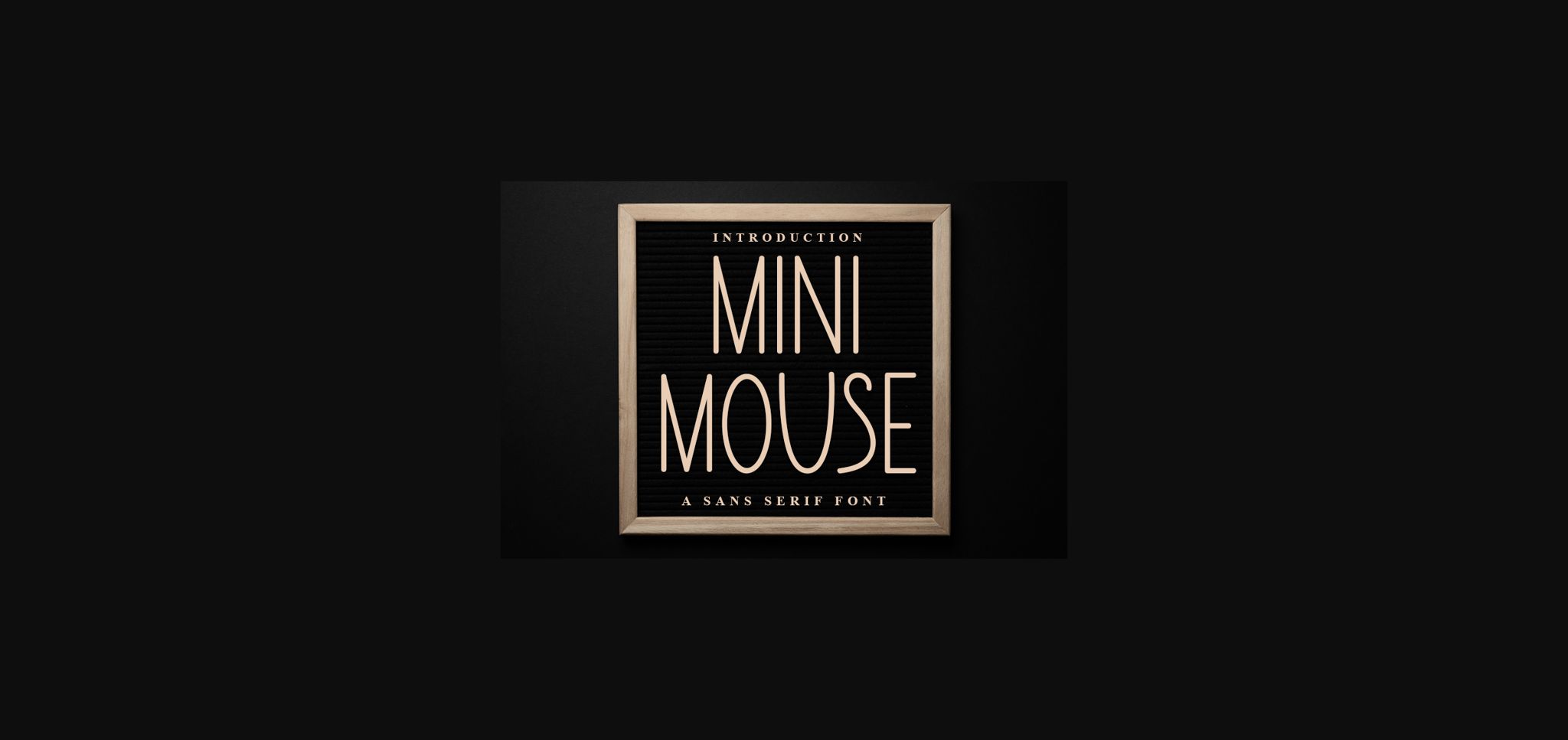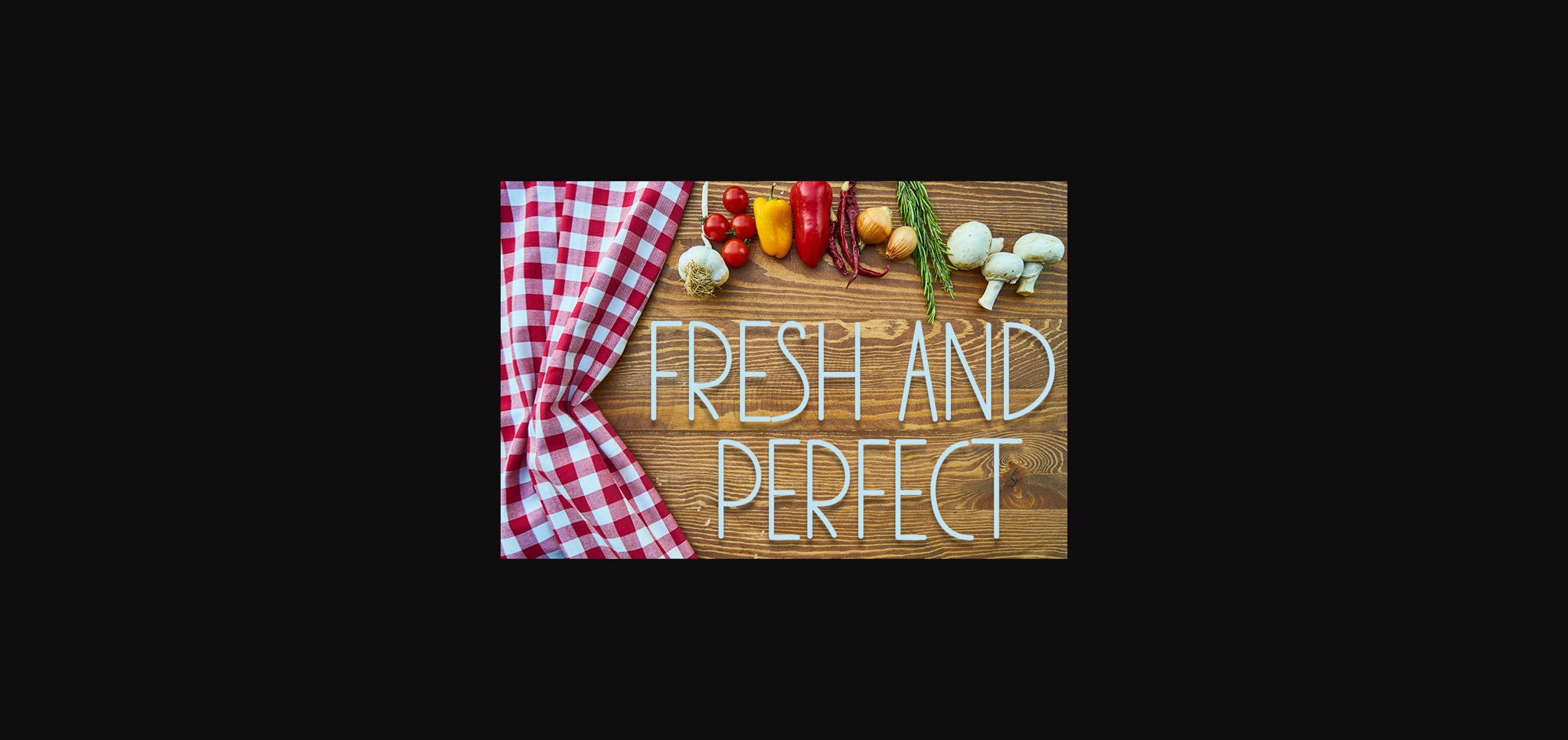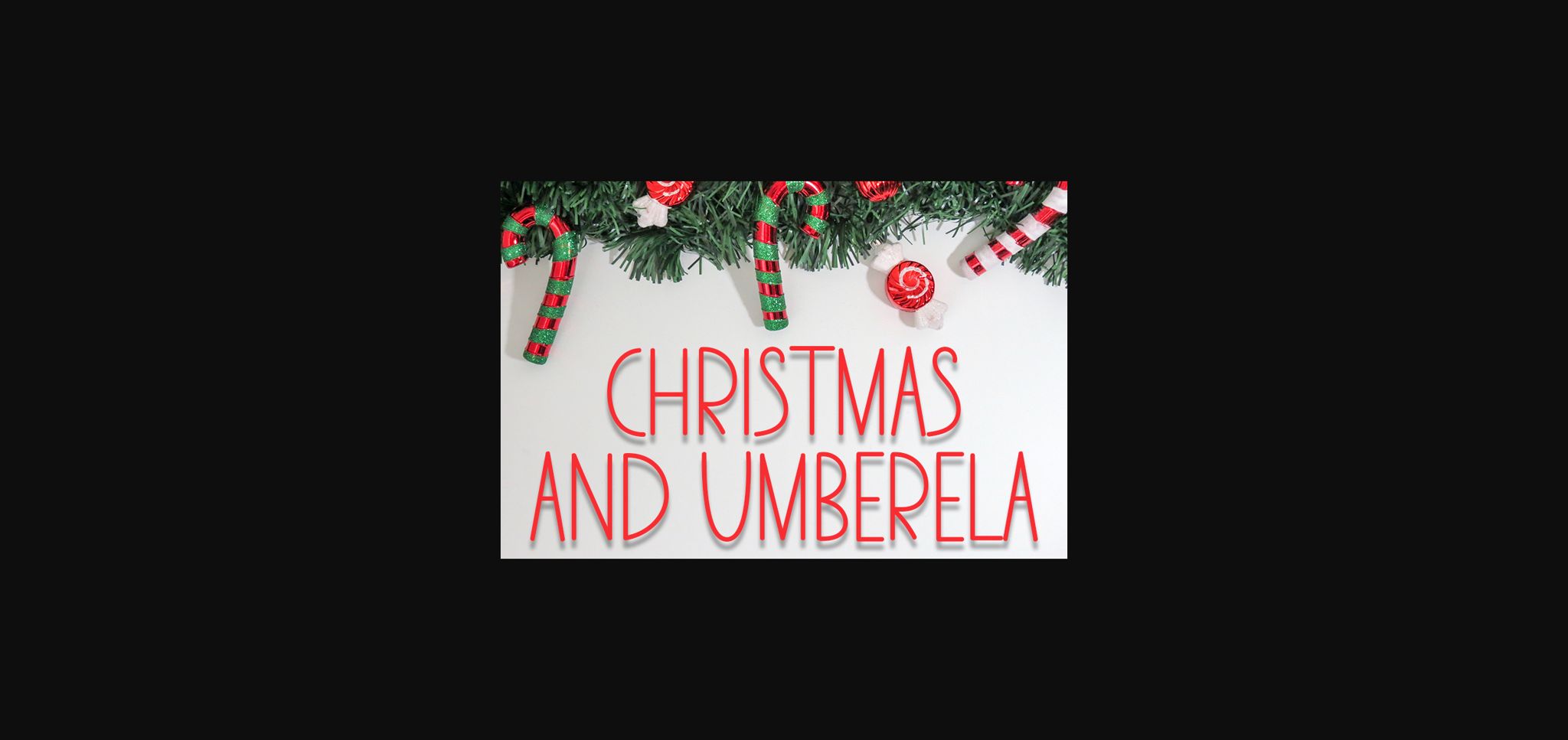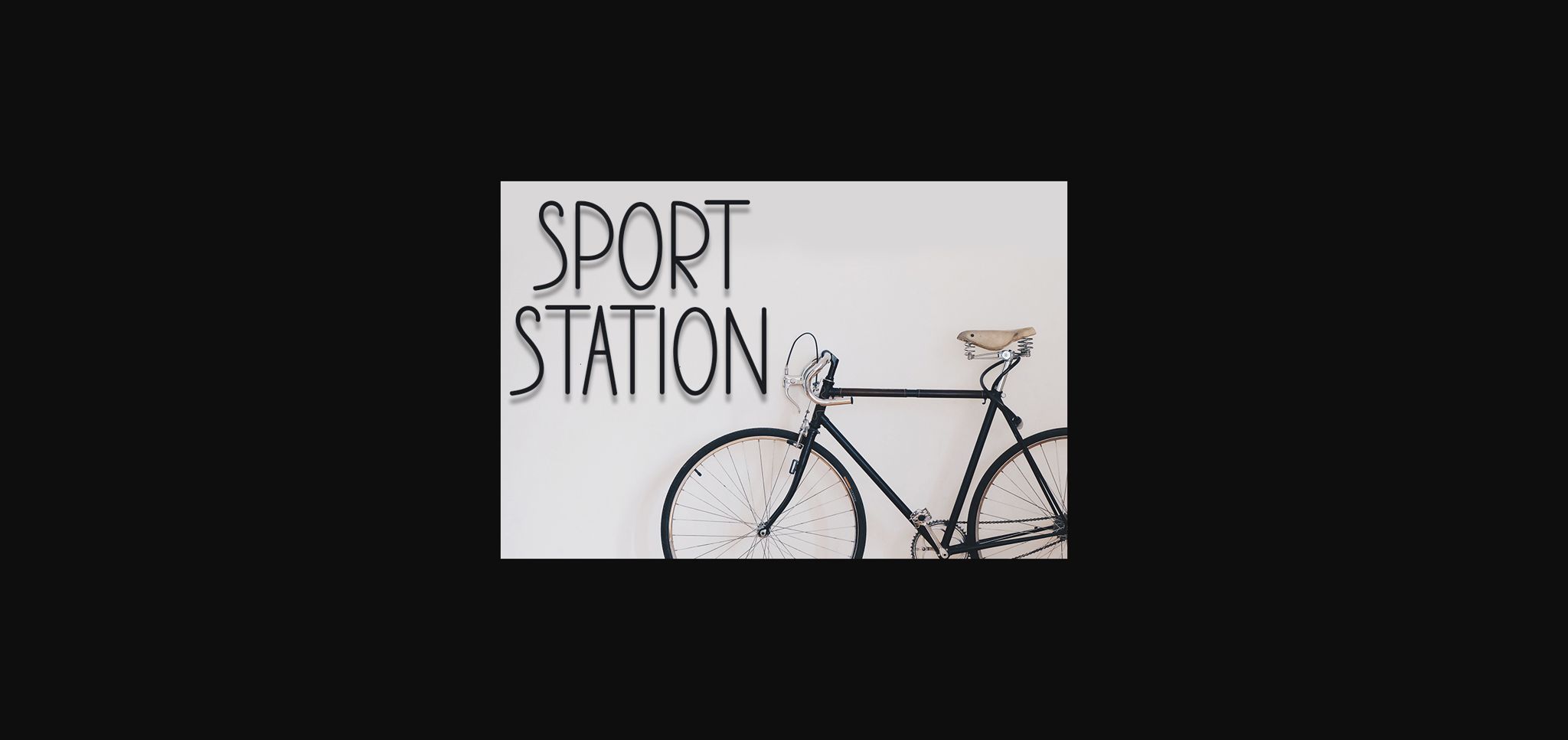
Mini Mouse Font
About Mini Mouse Font
Mini Mouse is a stylish and neat sans serif font. Friendly and incredibly unique, this font will adapt to a wide variety of designs.